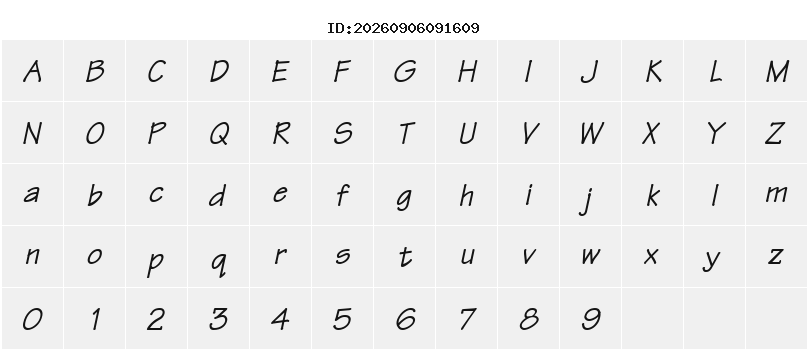
Techno Preview
• Font Name: Techno
• Font ID: Alts:Techno Bold Italic
• Full Font Name: Techno Bold Italic
• Version: 1.0/1995: 2.0/2001
• PostScript Name: Techno-BoldItalic
• Character Count: 217
About Techno.ttf
Techno.ttf is a modern, elegant sans-serif font designed for ultimate readability and visual harmony. Perfect for branding, headlines, web design, and print materials.